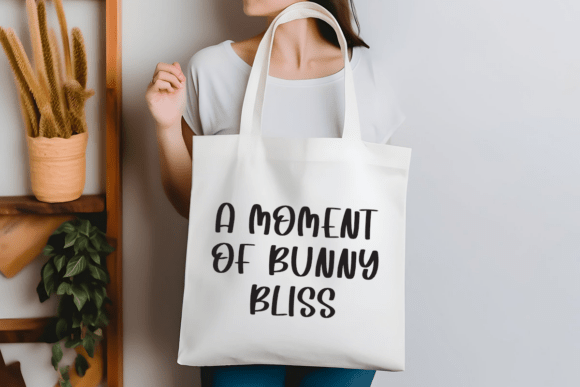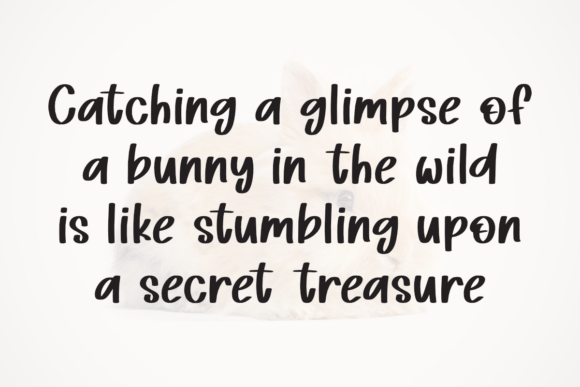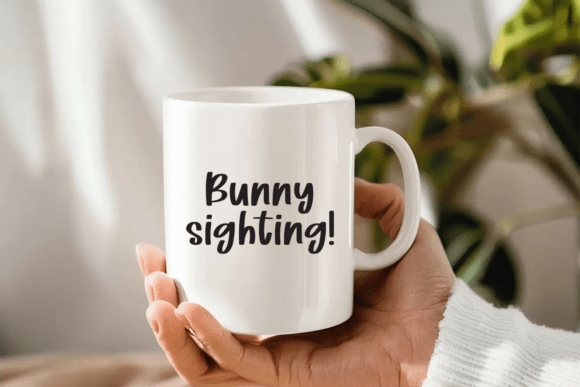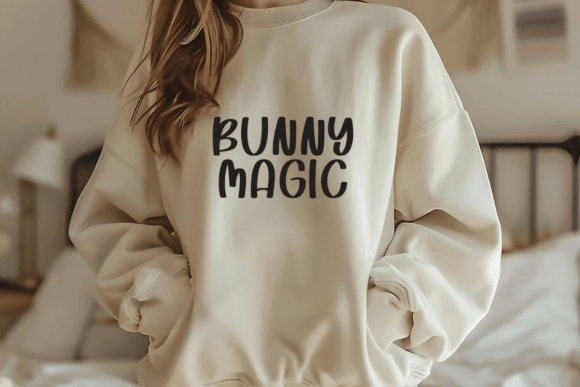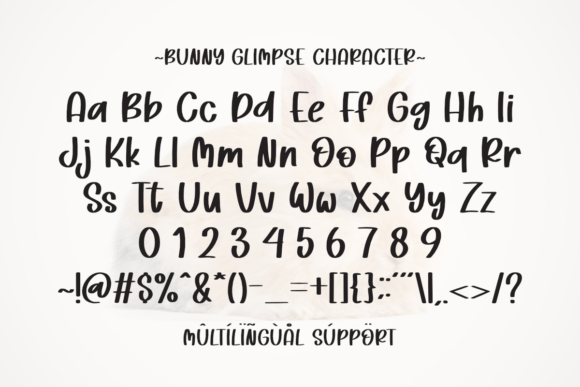
The Delightful Bunny Glimpse Font: A Designer’s New Best Friend
I still remember the time I was working on a children’s book project, and I just couldn’t find the right font to bring the story to life. The client wanted something playful, yet modern and clean. I scoured the internet, tried out dozens of fonts, but nothing seemed quite right. That was until I stumbled upon the Bunny Glimpse font. ✨ It was love at first sight! The tall, rounded letters and casual hand-drawn aesthetic instantly captured the whimsical feel I was going for. In this article, I’ll share my experience with Bunny Glimpse, its features, and how to make the most of it in your designs.
An Honest Review of Bunny Glimpse
- ✅ Clean yet whimsical look that’s perfect for a variety of design projects
- ✨ Tall, rounded letters that add a touch of playfulness to any design
- 💕 Casual hand-drawn aesthetic that gives designs a friendly and approachable feel
- 📚 Ideal for children’s books, branding, party invitations, and more
While Bunny Glimpse is an amazing font, there are a few things to keep in mind: 🤔
- ⚠️ Some letters may appear a bit narrow, so be mindful of spacing in your designs
- ⚠️ Not all OpenType features are available in every platform or software
The Backstory Behind Bunny Glimpse
Bunny Glimpse was designed with the intention of creating a font that’s both clean and playful. The designer wanted to craft a font that would be perfect for children’s books, party invitations, and other designs that require a touch of whimsy. With its tall, rounded letters and casual hand-drawn aesthetic, Bunny Glimpse is sure to bring a smile to anyone’s face. 🌟
| Font Name | Bunny Glympse Font |
| Author | Letterayu |
Q: What type of projects is Bunny Glimpse best suited for?
A: Bunny Glimpse is ideal for children’s books, branding, party invitations, and any design project that requires a playful yet modern feel.
Q: Is Bunny Glimpse available in different weights or styles?
A: Currently, Bunny Glimpse is available in a single weight, but it’s possible to experiment with different sizes and colors to achieve the desired effect.